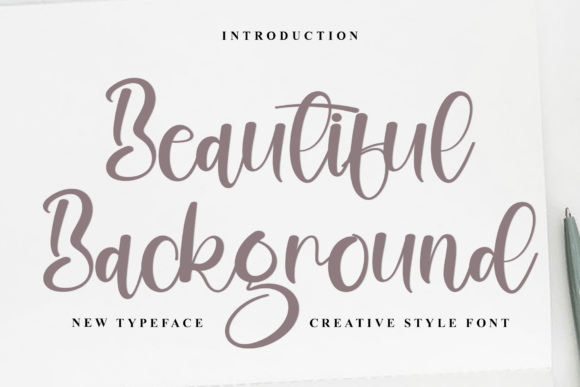
Introduction to Beautiful Background Font
Beautiful Background is a sophisticated new typeface and creative style font that radiates an aura of romantic grace and effortless elegance.
Featuring a flowing, lyrical structure with gentle swashes and varying stroke weights, this modern script captures the essence of luxury penmanship The Beautiful Background font is designed for projects that require a high-end, artistic touch, making it a premier selection for wedding stationery, boutique branding, and premium editorial layouts.
Key Features of Beautiful Background Font